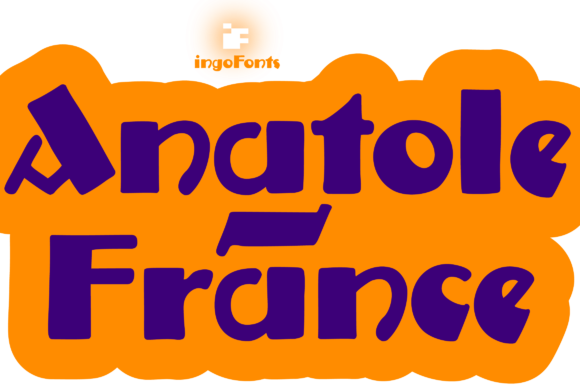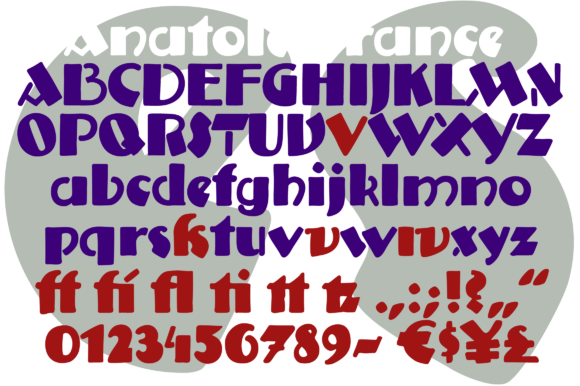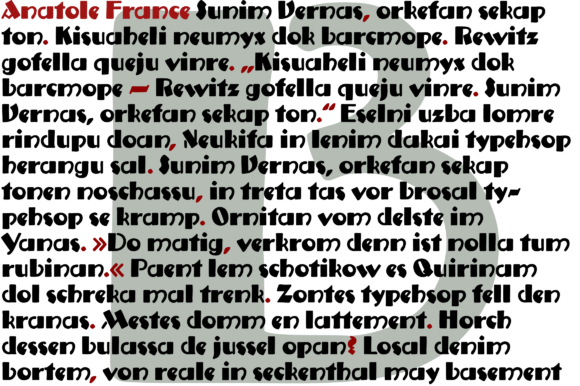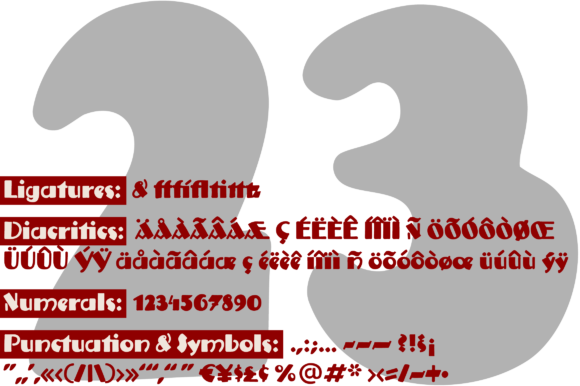
Anatole France Font
About Anatole France Font
Anatole France is a semi-bold, decorative poster type in the style of Art Deco. It will effortlessly turn any design idea into a stand out!